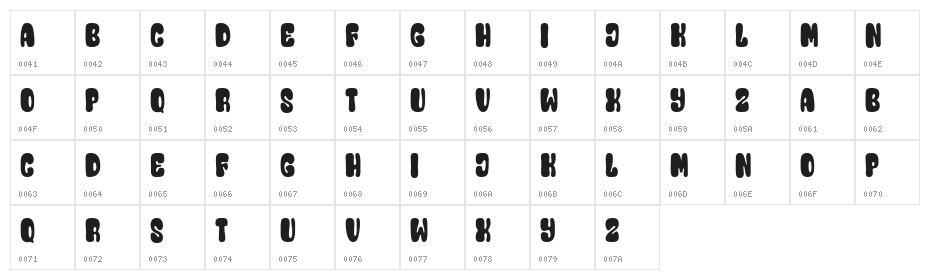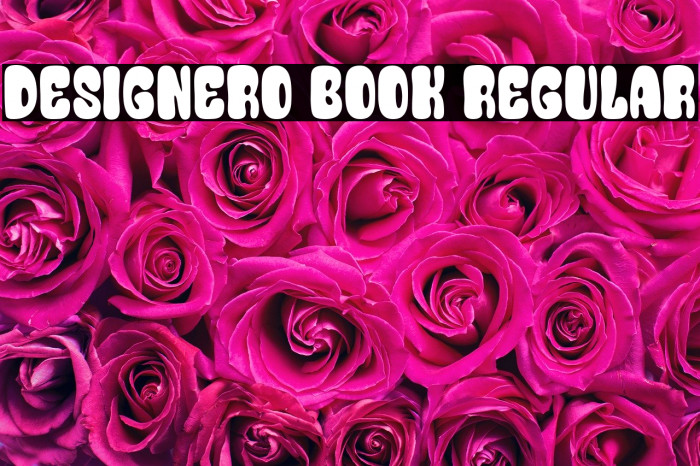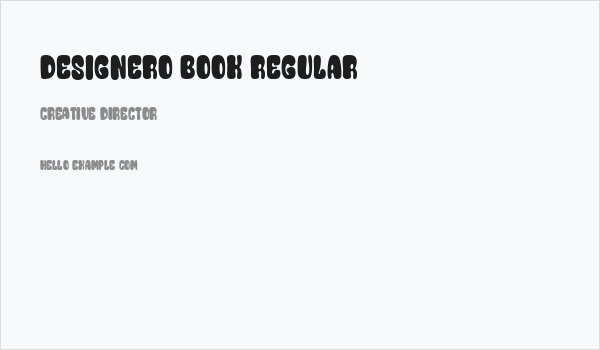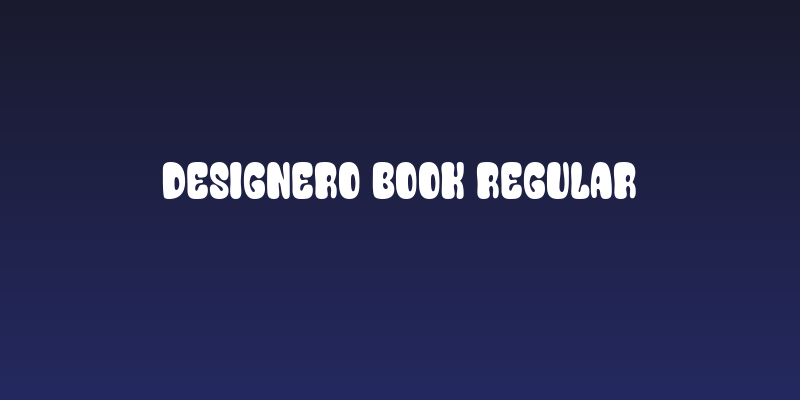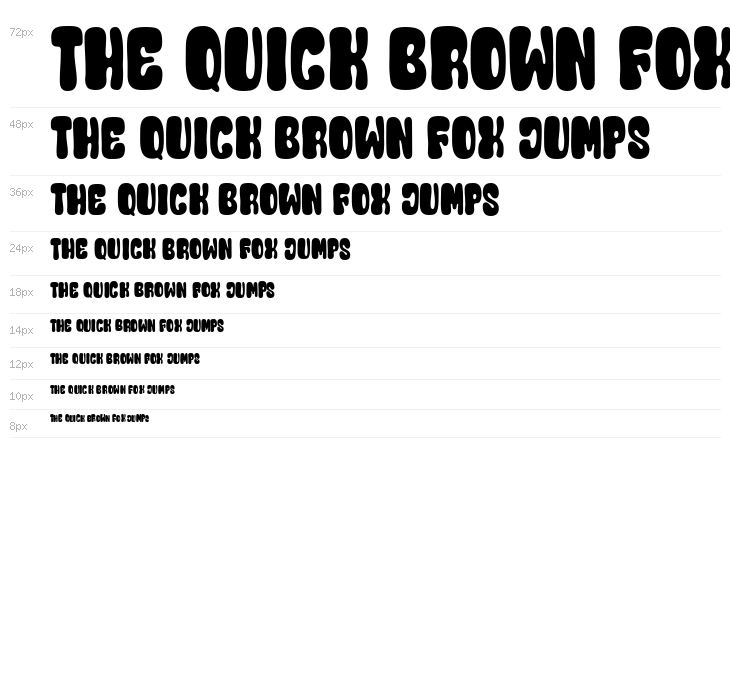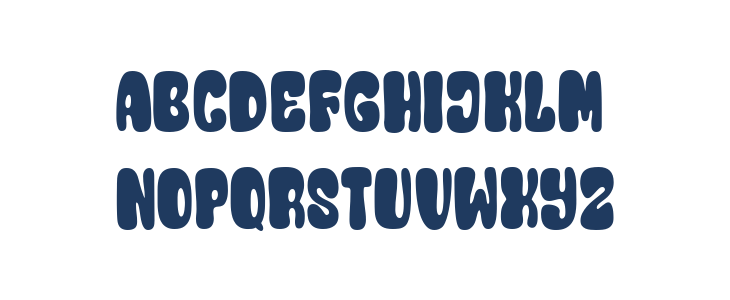
Designero Book Regular Font
Designero Book Regular Description
This font features bold, rounded characters with a playful and chunky appearance. The letters are uniformly thick, creating a strong visual impact. The style is reminiscent of retro and vintage design, with a touch of modern flair. The characters are closely spaced, enhancing the boldness and making it suitable for attention-grabbing headlines or titles. The font's unique style makes it ideal for creative projects where a fun and engaging look is desired.
| Overall Style | Retro, Playful |
| Proposed Projects | Perfect for posters, logos, children's books, and branding that requires a fun and bold statement. |